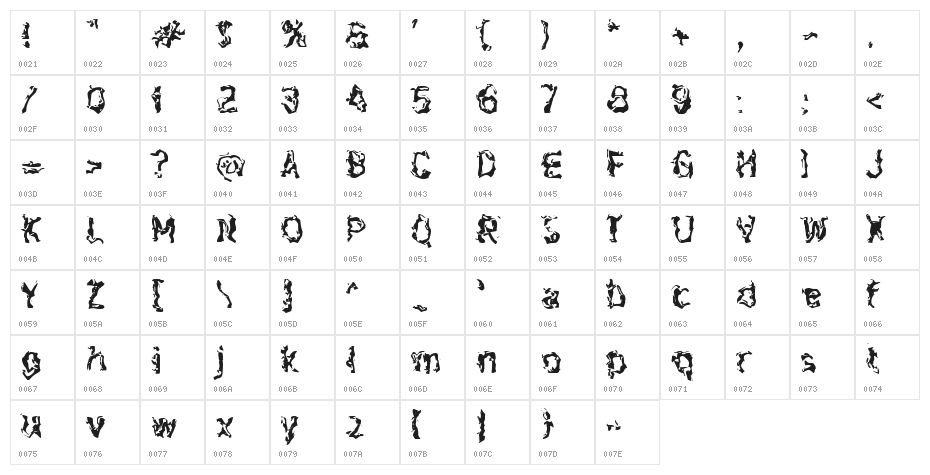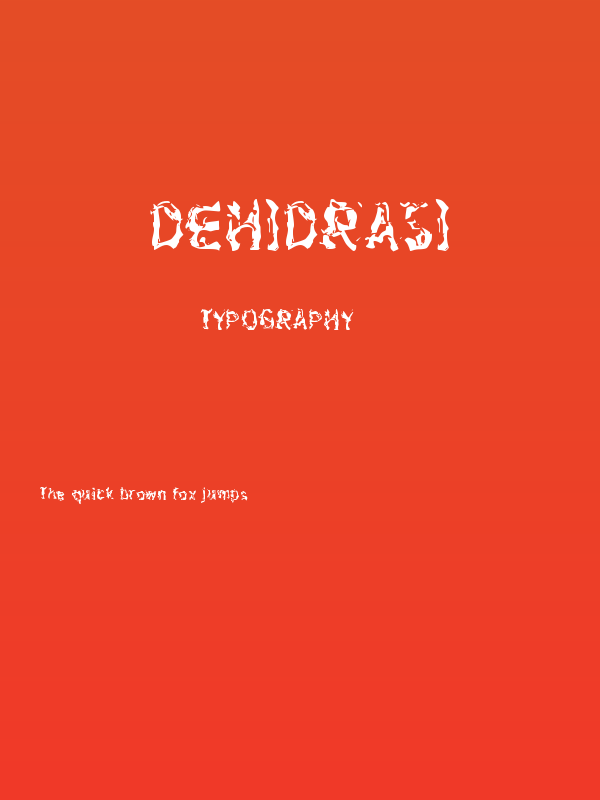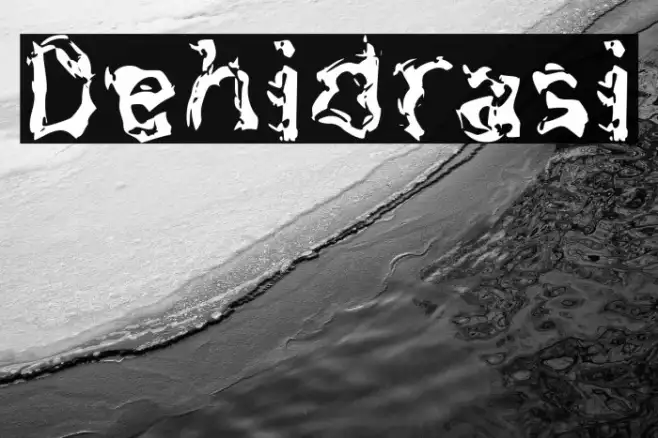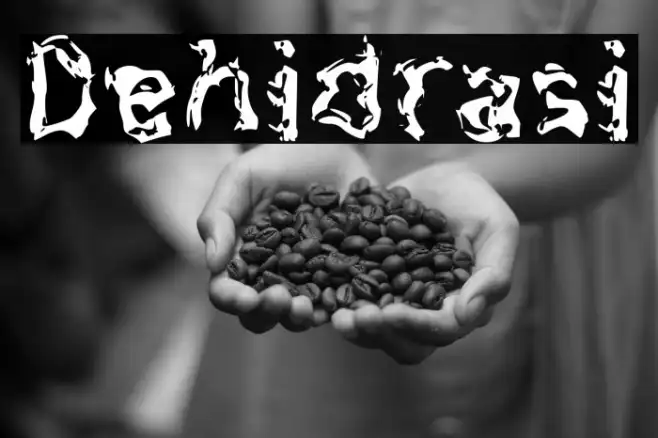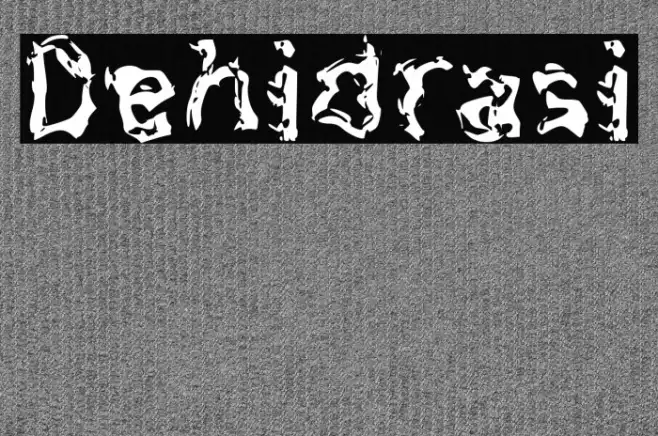
Dehidrasi Font
Dehidrasi Description
This font features a highly decorative and abstract style, characterized by its fragmented and chaotic appearance. Each character appears as if it has been torn or eroded, creating a unique and edgy look. The letters are bold and have a high contrast between the thick and thin strokes, adding to the dramatic effect. The overall design is irregular and dynamic, making it stand out as a statement piece. This font is not suitable for body text due to its complexity but excels in creating impactful headlines or artistic designs.
| Proposed Projects | Ideal for album covers, posters, or any project requiring a bold, artistic statement. |